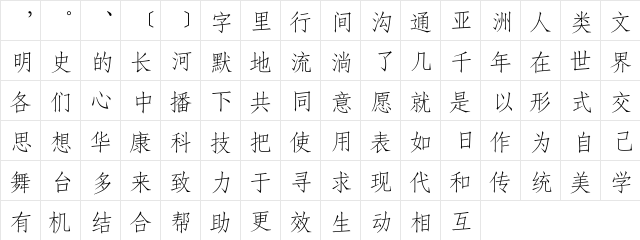
DFFangSong1B-GB Regular
Design Context for DFFangSong1B-GB Typeface
DFFangSong1B-GB offers clean, dependable letterforms without strong stylistic allegiance, making it a practical choice for designers who need flexibility.